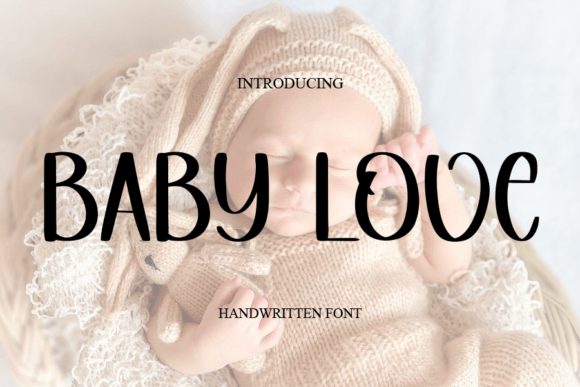
The Perfect Font for a Special Touch
You know that moment when you’re brainstorming ideas for a project, and everything just comes together? You’re sipping your coffee, the music is playing, and your creative juices are flowing. It’s in these moments that you stumble upon the perfect font to bring your design to life. For me, that font is Baby Love, a fun and friendly handwritten font that’s sure to add a special touch to any project.
Baby Love Font is designed to be versatile and playful, making it perfect for a wide range of applications, from crafts and digital design to presentations and greeting cards. Its friendly nature and hand-drawn feel make it an instant favorite among designers, and for good reason – it’s easy to use and adds a personal touch to any design.
Baby Love Font Key Features
- Font Family: Baby Love Font is a unique, handwritten font designed for personal and commercial use.
- Character Count: The font contains over 250 characters, including uppercase and lowercase letters, numbers, and special characters.
- Unique Characteristics: Baby Love Font features a playful, cursive design with a mix of uppercase and lowercase letters, giving it a unique and whimsical feel.
Designer Review: Baby Love Font
I recently had the chance to work with the Baby Love Font, and I must say it’s a unique and playful addition to any design project. ✨ The font’s rounded edges and childlike charm make it perfect for creating a whimsical and lighthearted atmosphere. The font is also highly customizable, allowing designers to adjust the weight, spacing, and size to suit their specific needs.
One of the standout features of the Baby Love Font is its versatility. ✨ It can be used for a variety of projects, from children’s books and educational materials to advertising and promotional campaigns. The font is also highly legible, making it easy to read even at small sizes.
While the Baby Love Font is a great addition to any design project, there are a few limitations to consider. ⚠️ The font may not be suitable for more formal or professional projects, as it can come across as too childish or immature. Additionally, the font may not be as effective in smaller sizes or when used in bold weights.
- May not be suitable for formal or professional projects
- May not be as effective in smaller sizes or bold weights
Overall, I think the Baby Love Font is a fun and creative addition to any design project. While it may have some limitations, it’s a great choice for projects that require a playful and whimsical touch. With its high level of customization and versatility, it’s definitely worth considering for your next design project.
The Baby Love Font is perfect for:
- Baby shower invitations and decorations
- Children’s book covers and illustrations
- Baby-themed gift tags and cards
Tips for Getting the Most Out of the Baby Love Font
To get the most out of the Baby Love Font, consider the following tips:
- Use it in combination with pastel colors for a soft and sweet look.
- Experiment with different font sizes and styles to create a playful and whimsical effect.
Alternatives to Baby Love Font
Great Vibes is a beautiful, cursive font ideal for use in titles, headings, and quotes. It features elegant swashes and flourishes, making it perfect for adding a touch of sophistication to your designs. Great Vibes is similar to Baby Love Font in its cursive nature, but it has a more refined and elegant feel.
Carolyna Pro is a modern, elegant script font suitable for a wide range of designs, from wedding invitations to branding materials. It features a mix of cursive and handwritten elements, giving it a unique and personal touch. Carolyna Pro is more versatile than Baby Love Font and can be used in both formal and informal settings.